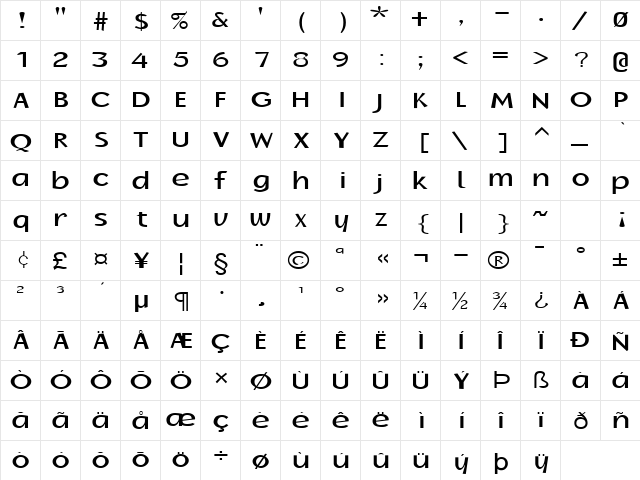
Oak-Ridge-Extended Normal
Oak-Ridge-Extended is a composed and adaptable typeface that performs quietly and consistently across a wide range of design contexts.